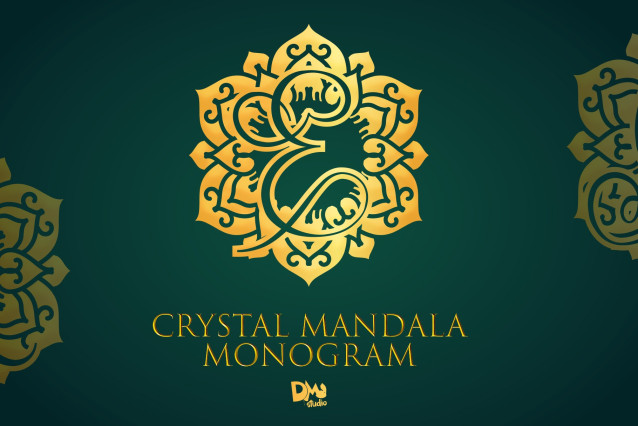
Crystal Mandala Monogram Font
Crystal Mandala Monogram Font is a beautifully crafted monogram font that blends sparkling crystal motifs with intricate mandala details. Inspired by the beauty of gemstones and ornamental artistry, this font is perfect for luxury branding, wedding stationery, holistic wellness products, personalized gifts, and artistic designs. Its radiant and refined aesthetic brings elegance and brilliance to any creative project.